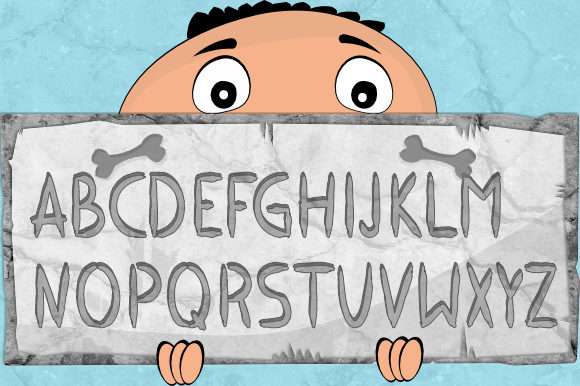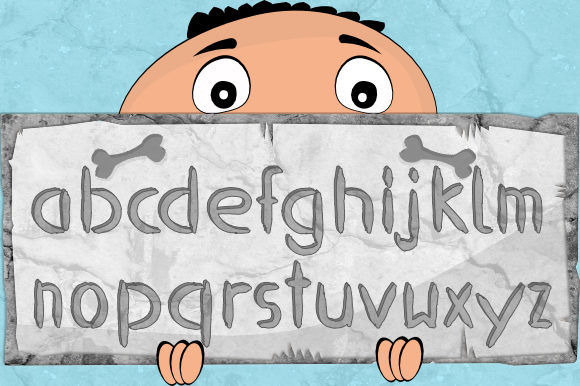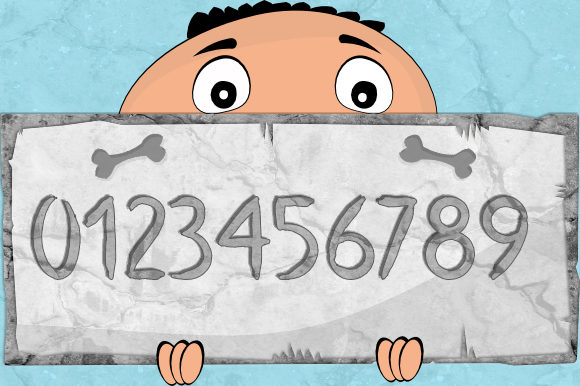
HomeScript FontsStoneage Font Script Fonts Stoneage Font FacebookXPinterestWhatsApp Stoneage Font Poster 2 Stoneage Font Poster 3 Stoneage Font Poster 4 About Stoneage Font Stoneage is a fun and playful handwritten font with a whimsical twist. Get inspired by its youthful charm! DOWNLOAD ON CREATIVE FABRICAThis font is sold and delivered by Creative Fabrica. Font Canyon may earn a commission if you buy through this link. People also explored Sweety Font Sketchthiny Font Atensium Font Bena Delo Font Emely Font Milthen Font Refresh Battenberg and Custard Font Sunday Christmas Font 371 0 TagsStoneage Font Previous articleBantasi FontNext articleMaybe Yes Font LEAVE A REPLY Cancel reply Comment: Please enter your comment! Name:* Please enter your name here Email:* You have entered an incorrect email address! Please enter your email address here Website: Save my name, email, and website in this browser for the next time I comment. Personal Use Free Authurium Personal Use Free Read more about this font Welcome Creative Personal Use Free Read more about this font Alinda Personal Use Free Read more about this font Helsinki Personal Use Free Read more about this font BLOG Where to Buy American Fonts Online in 2024 Where to Buy American Fonts Online: The Ultimate Guide for 2024 Looking for the perfect American font to elevate your design projects? You're in the... How to Cut Any Font on Cricut: Convert a Font to SVG (Free) Top 7 Google Fonts Alternatives for Faster and Privacy-Friendly Web Design (2025) Top 10 Handwritten Fonts That Elevate Your Designs